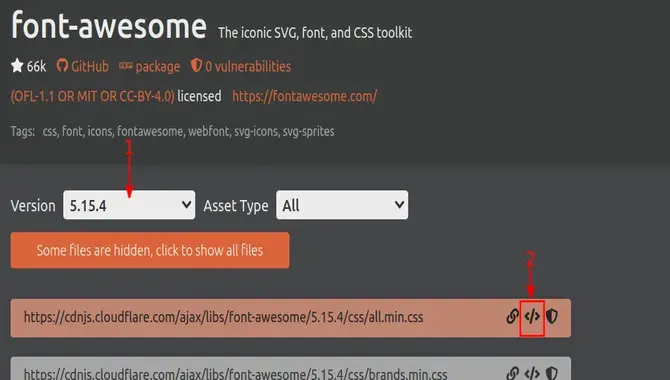
Font Awesome is a popular icon toolkit that provides a wide range of customizable icons for websites and other digital platforms.
What Is Font Awesome?
Font Awesome is a popular icon set that provides designers and developers with various icons for their projects. It was created by Dave Gandy in 2012 and has since become one of the most widely used icon sets on the web. Font Awesome is designed to be easy to use, with icons that can be easily added to websites and applications using CSS or JavaScript.
The icons are vector-based, which means they look sharp at any size and can be customized with CSS to match the design of your website or application. From social media icons to arrows and symbols, Font Awesome offers a comprehensive collection of over 7,000 icons that can help enhance the visual appeal of your website or app.
Font Awesome Min CSS also includes all the features and functionality of the full CSS stylesheet, so you won’t have to compromise on the quality or variety of icons available. Choosing Font Awesome for your icon needs ensures you have access to a vast library of high-quality icons that can add a touch of creativity and visual appeal to any website or application.
Font Awesome is a font and icon toolkit that makes it easy to add awesome icons to your website. You can easily create your unique look with customizable options like changing size, colour, and style. Using the Font Awesome CDN or downloading the files from their site, you can quickly add Font Awesome icons to your HTML file. With regular updates and support, Font Awesome can help keep your site up-to-date with the latest design trends.
5.What Is Font Awesome, And How Does It Enhance Web Design?
Ans. Font Awesome is a font and icon toolkit that improves web design by providing scalable vector icons. It offers over 1,500 free icons and can be customized to match your website’s colour scheme. Font Awesome works with all modern browsers and can be easily integrated into your website using CSS or a CDN, making it a valuable tool for improving user experience and aesthetics.